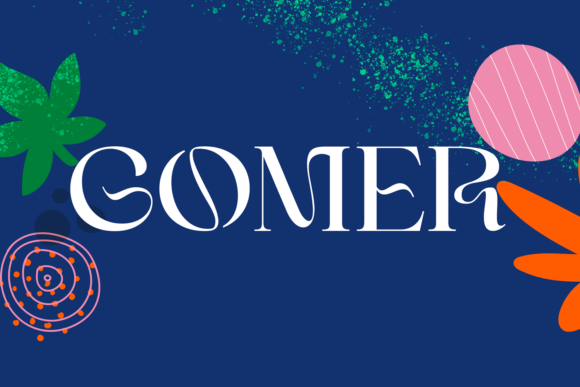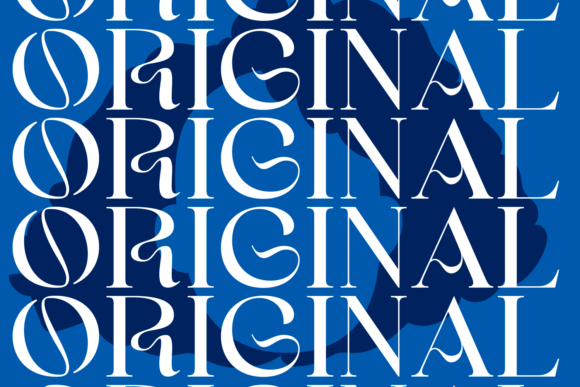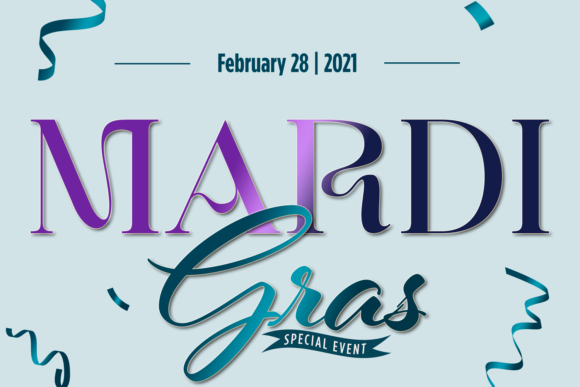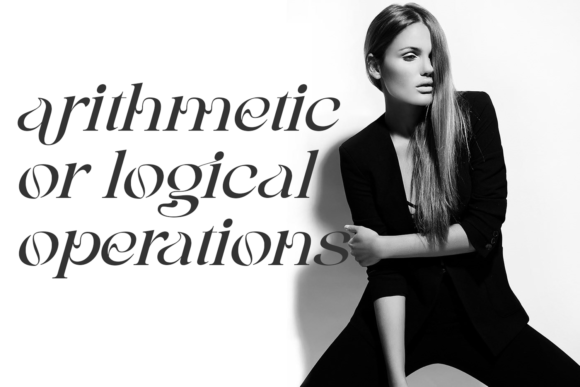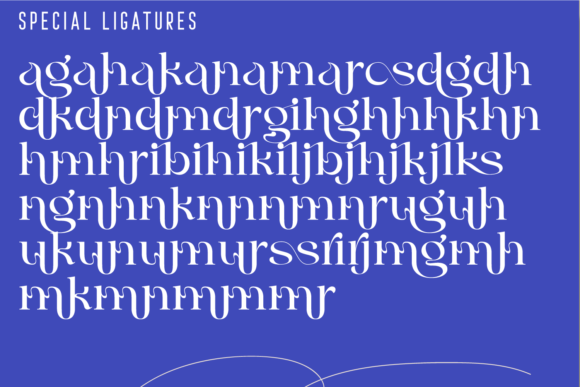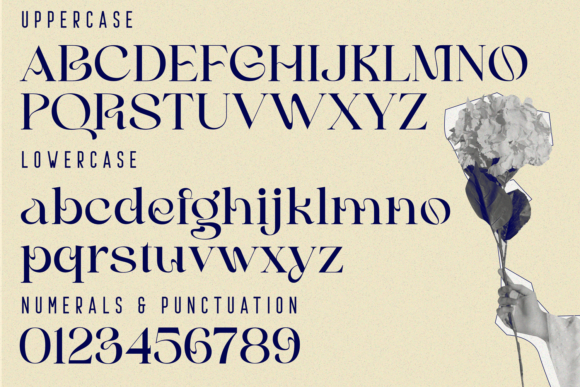
Introducing Engage Font: Elevate Your Creations with Elegance and Style
In the world of design, typography plays a crucial role in conveying the message and aesthetic of a project. Among the numerous fonts available, Engage Font stands out as a sophisticated and stylish serif font that can instantly elevate your creations. In this article, we’ll explore the features and benefits of Engage Font, and why it’s a must-have for designers and crafters.
What is Engage Font?
Engage Font is an elegant and stylish serif font designed to add a touch of sophistication to your projects. Its trendy and unique design makes it perfect for a wide range of applications, from branding and advertising to packaging and digital media.
One of the standout features of Engage Font is its PUA (Private Use Area) encoding. This means that you can access all the glyphs and swashes with ease, giving you greater flexibility and creative control over your typography.
Features of Engage Font
- Elegant and Stylish Design: Engage Font boasts a sophisticated serif design that’s perfect for creating high-end visuals.
- Trendy and Unique: Its trendy and unique style sets it apart from other serif fonts, making it ideal for designers looking to create something fresh and modern.
- PUA Encoded: With PUA encoding, you can easily access all the glyphs and swashes, allowing for greater creative control.
- Versatile: Engage Font is suitable for a wide range of applications, including branding, advertising, packaging, and digital media.
Benefits of Using Engage Font
So, why should you choose Engage Font for your next project? Here are just a few benefits of using this stylish serif font:
- Instantly Elevate Your Creations: With Engage Font, you can instantly add a touch of elegance and sophistication to your projects.
- Stand Out from the Crowd: Its unique and trendy design ensures that your typography will stand out from the crowd.
- Easy to Use: Engage Font is PUA encoded, making it easy to access all the glyphs and swashes.
- Time-Saving: With Engage Font, you can save time and effort in creating custom typography from scratch.
Who Can Benefit from Engage Font?
Engage Font is perfect for a wide range of designers and crafters, including:
- Graphic Designers: Add a touch of elegance and sophistication to your branding, advertising, and packaging projects.
- Digital Media Designers: Elevate your digital media projects, including social media graphics, blogs, and websites.
- Crafters: Use Engage Font to create beautiful and unique crafts, such as handmade cards, invitations, and scrapbooking projects.
- Small Business Owners: Create professional-looking marketing materials, including brochures, flyers, and business cards.
In conclusion, Engage Font is a stylish and elegant serif font that’s perfect for designers and crafters looking to elevate their creations. With its trendy and unique design, PUA encoding, and versatility, Engage Font is a must-have for anyone looking to add a touch of sophistication to their typography.